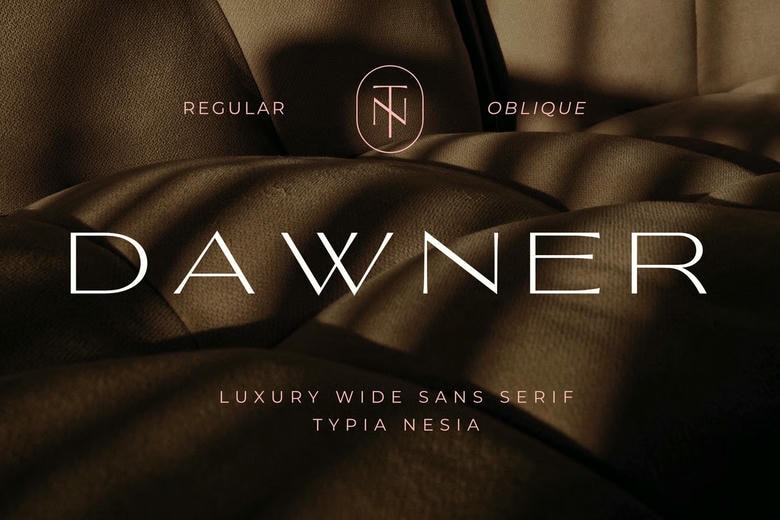
Dawner Font
Dawner is a wide sans-serif font with clean, geometric shapes and balanced proportions. Its simple style gives brands a timeless look, so it works well for branding, editorial projects, fashion, and luxury product design.
Dawner Sans Serif Font